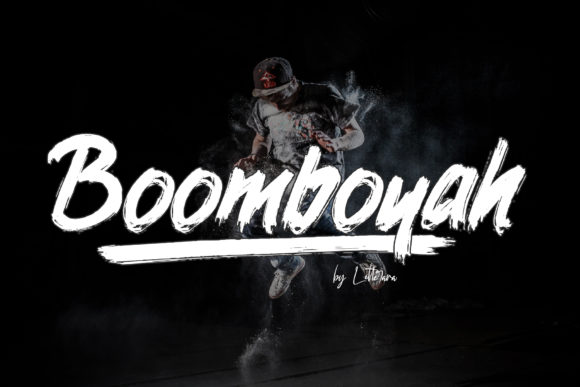
Boomboyah Font
Jump into the world of urban expression with Boomboyah Font, the ultimate display font that radiates boldness and coolness. Created by the talented thomasaradea, this font is more than just a collection of letters; it's a gateway to unleash your creativity and make a statement.
Boomboyah Font embraces the raw energy of the streets, capturing the essence of modern urban culture. Its strong and confident strokes demand attention, while its unique style adds a touch of edginess to your designs. Get ready to turn heads and leave a lasting impression with every word you type.
With Boomboyah Font, you'll discover endless possibilities for expression. Its versatility shines in logos, posters, headlines, social media graphics, and anything that craves a bold and impactful presence. Unleash your inner artist and explore the boundless creativity that awaits you.
This display font isn't just a tool; it's an experience. Feel the rush of adrenaline as your designs come to life, exuding confidence and individuality. Embrace the vibrant energy of Boomboyah Font and let your imagination run wild.
Don't settle for ordinary fonts that blend into the background. Dare to be different, to stand out, and to make a statement. Boomboyah Font is your passport to a world of bold expression, where your designs will captivate and inspire. Join the movement and let your creativity explode with Boomboyah Font today!